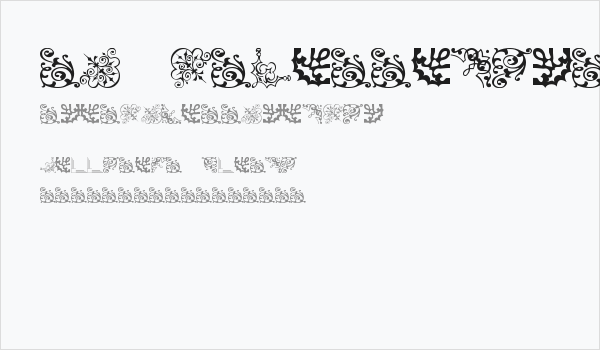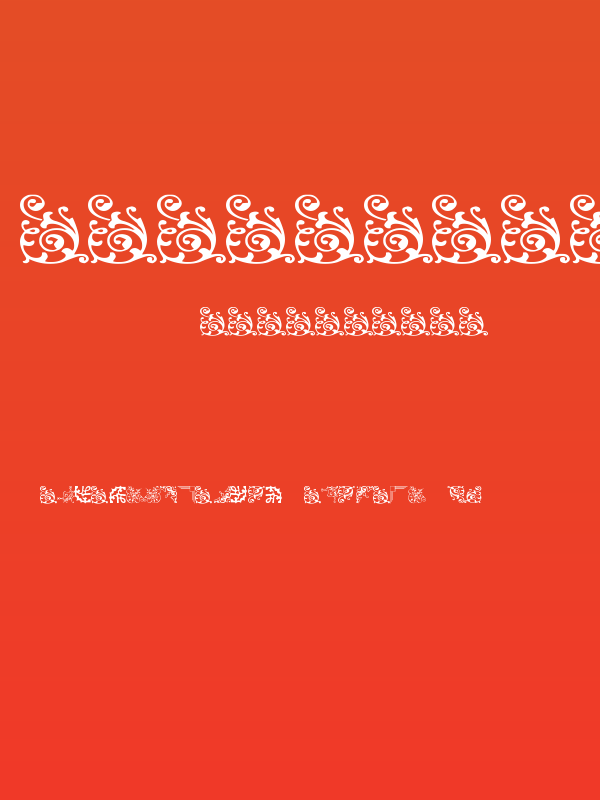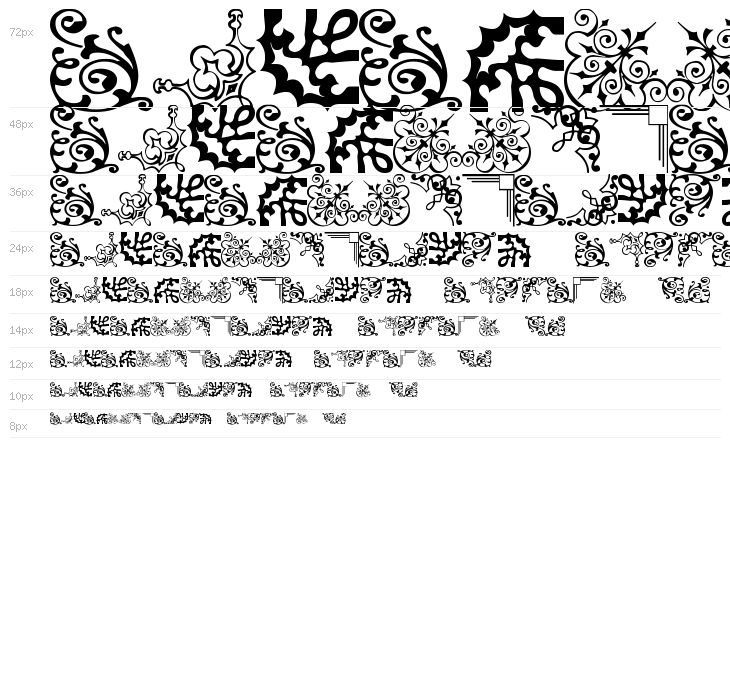
Vintage Decorative Corners 12 Font
Vintage Decorative Corners 12 Description
Highly ornamental and intricate decorative elements featuring swirling, floral, and corner motifs, designed to create vintage-style borders and frames rather than standard alphanumeric characters.
| Overall Style | Vintage, Decorative |
| Use Case | Borders, Frames, Decorative accents |
| Proposed Projects | Invitations, certificates, posters, book covers, decorative frames, vintage-themed designs. |